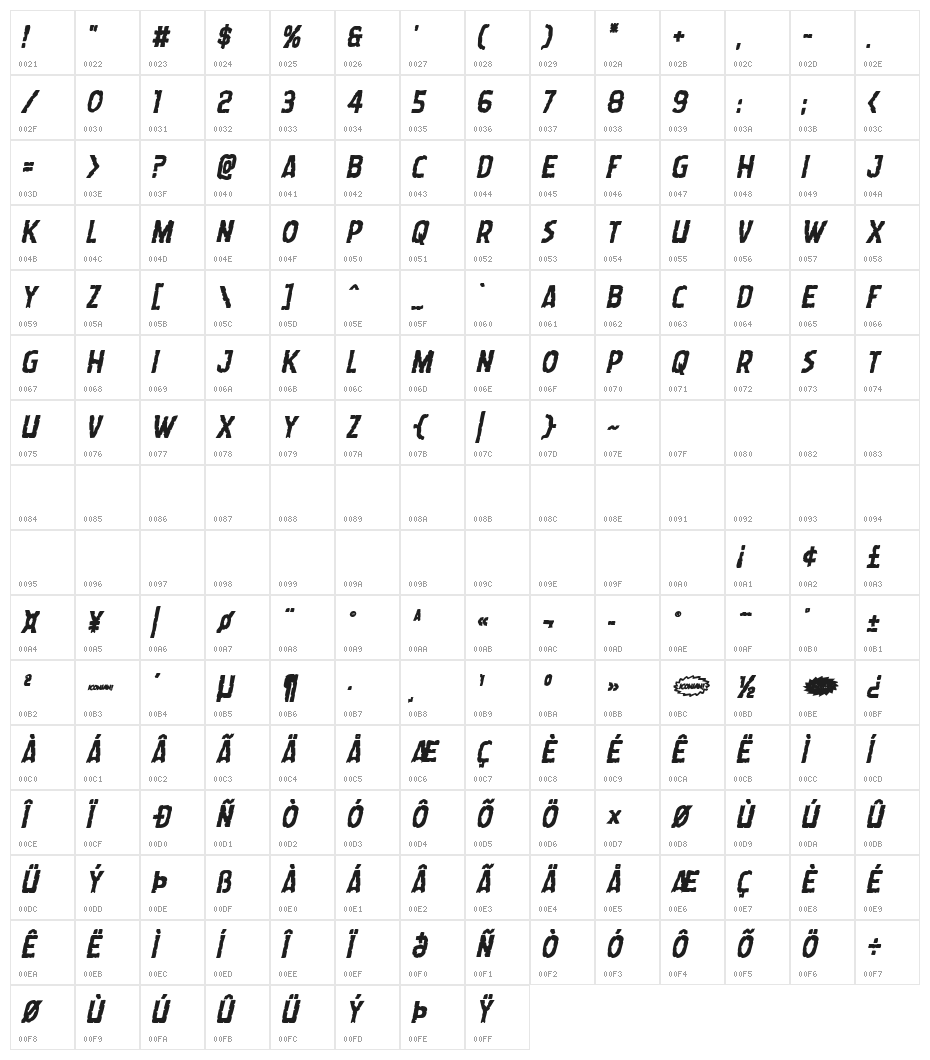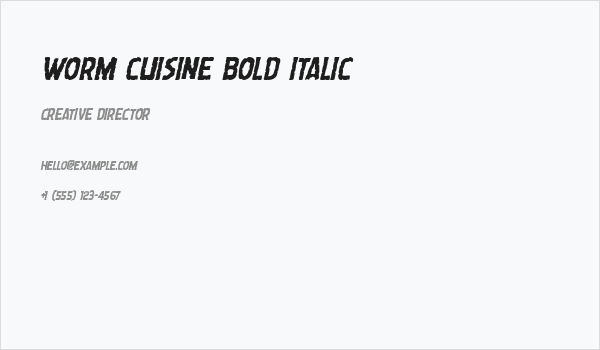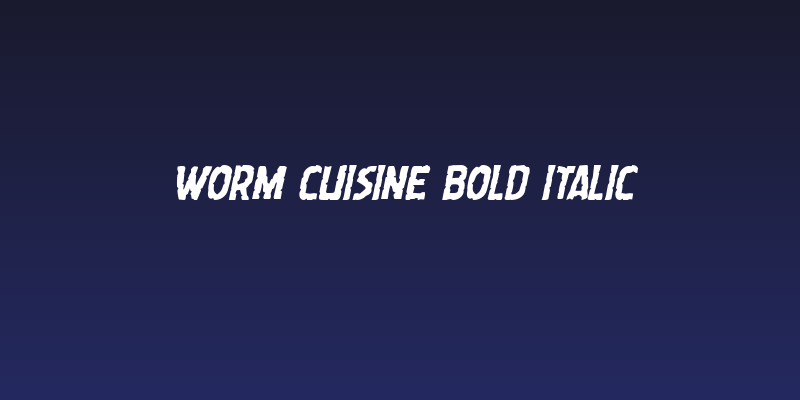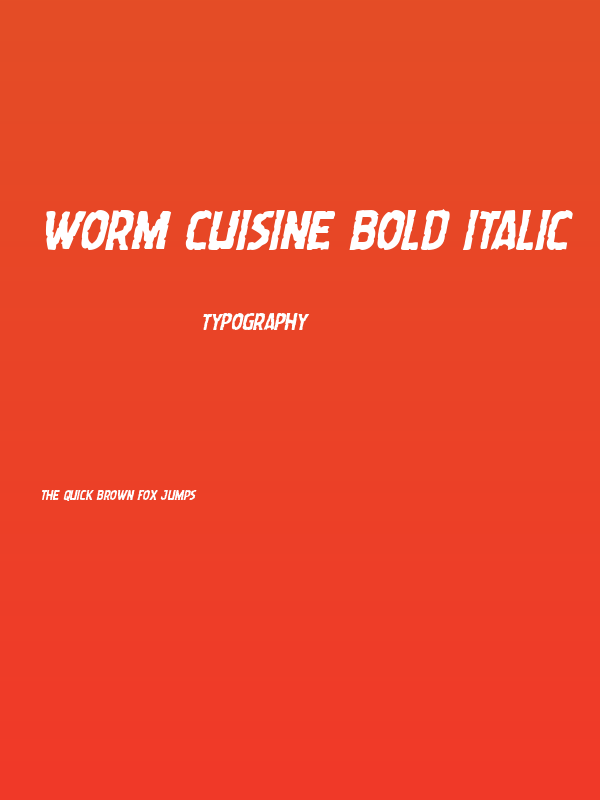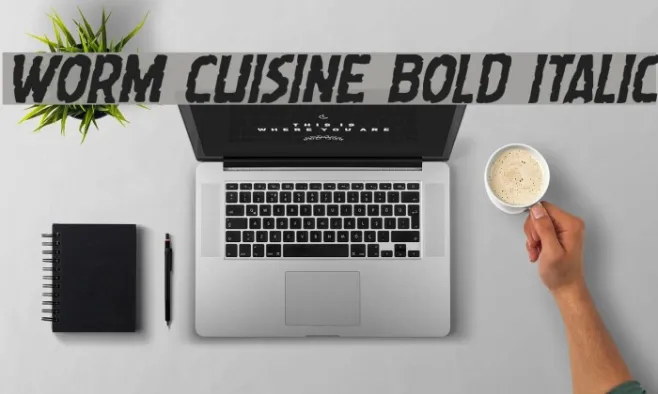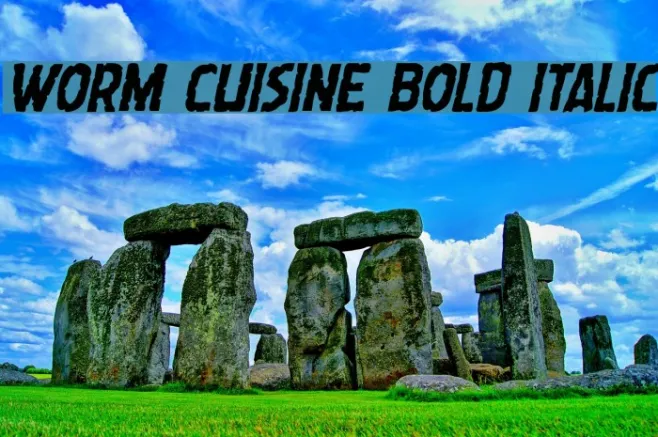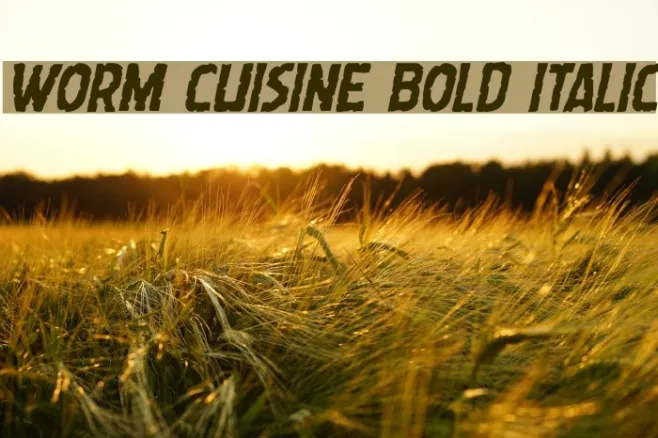
Worm Cuisine Bold Italic Font
Worm Cuisine Bold Italic Description
This font features a bold and italicized style with a distinctive, rugged texture that gives it a hand-drawn appearance. The characters are slightly slanted, enhancing the dynamic and energetic feel. The strokes are thick and uneven, adding a sense of movement and spontaneity. This font is highly legible despite its decorative nature, making it suitable for attention-grabbing headlines and creative projects. The numbers and special characters maintain the same bold and textured style, ensuring consistency across all elements.
| Proposed Projects | Ideal for posters, logos, and branding materials that require a bold, dynamic look. |